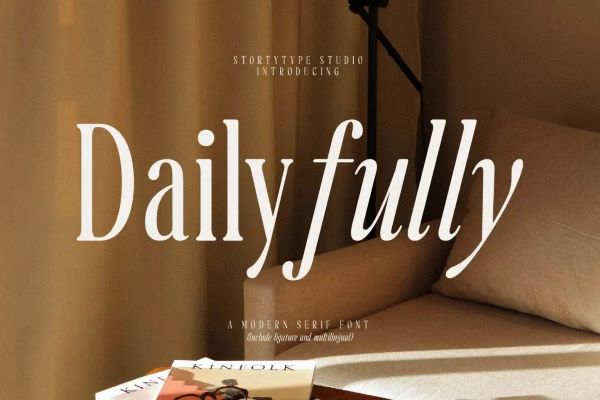
Dailyfully Font
Dailyfully Font is a Condensed Font by Storytype Studio — tall, slim, and mildly condensed with the proportional authority of classic editorial typography. Its refined serif structure catches the eye effortlessly without taking up unnecessary space, giving it a natural versatility that works at any scale from headline to signage.